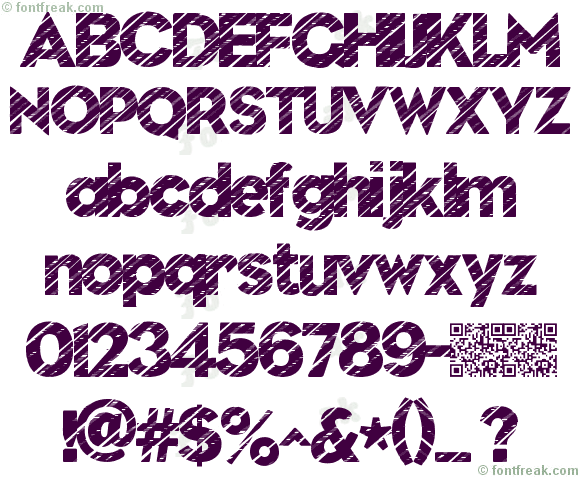
NuevoDisco
About NuevoDisco
NuevoDisco is a striking display font created by XEROGRAPHER FONTS in 2015, characterized by its bold, playful, and modern aesthetic. This font is part of the decorative category, making it a perfect choice for projects that aim to capture attention and convey a sense of fun. The visual characteristics of NuevoDisco include a unique stroke weight that varies throughout the characters, creating an engaging contrast that enhances its overall appeal. The spacing is generous, allowing for clarity and readability, while the decorative elements add a whimsical touch that sets it apart from more traditional fonts.
This versatile font is particularly well-suited for a variety of creative applications. It shines in contexts such as vibrant wedding invitations, where its lively nature can help convey a joyful atmosphere. Additionally, NuevoDisco is ideal for movie posters, allowing filmmakers to create a bold statement that reflects their film's energetic themes. Restaurant menus can also benefit from this font, as it draws diners' attention and enhances the overall dining experience. Finally, content creators and graphic designers will find NuevoDisco an excellent choice for social media graphics, giving their posts a distinctive flair that stands out in crowded feeds.
Targeting graphic designers, small business owners, and content creators, NuevoDisco offers a fresh take on decorative typography. Its free availability as freeware makes it accessible for anyone looking to elevate their design projects without financial constraints. The unique visual style and playful nature of NuevoDisco make it a standout choice for those seeking to make a memorable impression. For those interested, the NuevoDisco font free download allows you to harness its creative potential easily, ensuring your designs are both eye-catching and original.